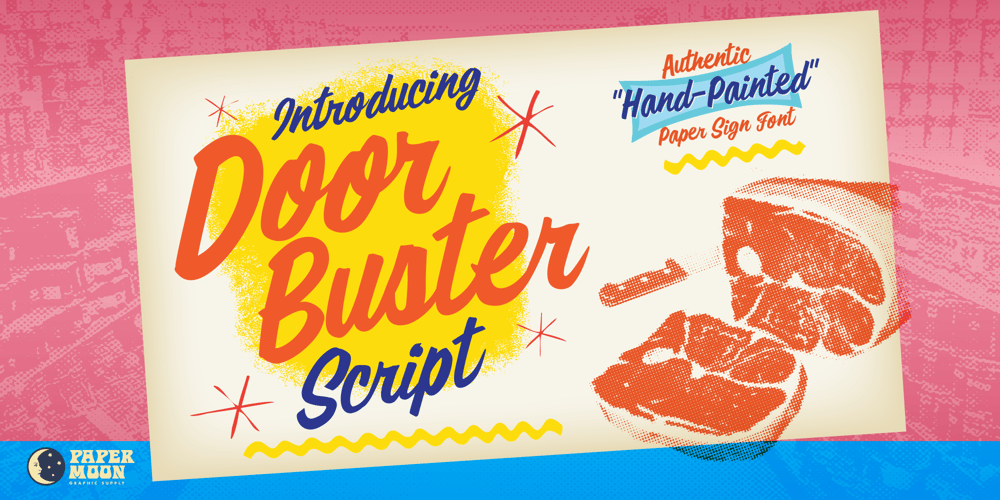
PM Doorbuster Script
PM Doorbuster Script Font Family was designed by Scott Banks and published by Paper Moon Type & Graphic Supply. PM Doorbuster Script contains 1 styles and family package options. A new font inspired by vintage hand-painted paper grocery store signs.The Doorbuster Collection is based on retro hand-painted paper signs primarily seen in grocery stores from the 1920s through the 1970s. We meticulously hand-drew each font, modeling the spacing and uneven baseline found in vintage sign painting. The purposely organic ascenders and descenders, along with a huge set of ligatures/contextual alternates to avoid the same letters repeating when paired, give it a real hand-lettered look.Doorbuster Script is perfect for both vintage-inspired and contemporary marketing, branding, and packaging designs. Check out a few of the samples included in the thumbnails above.